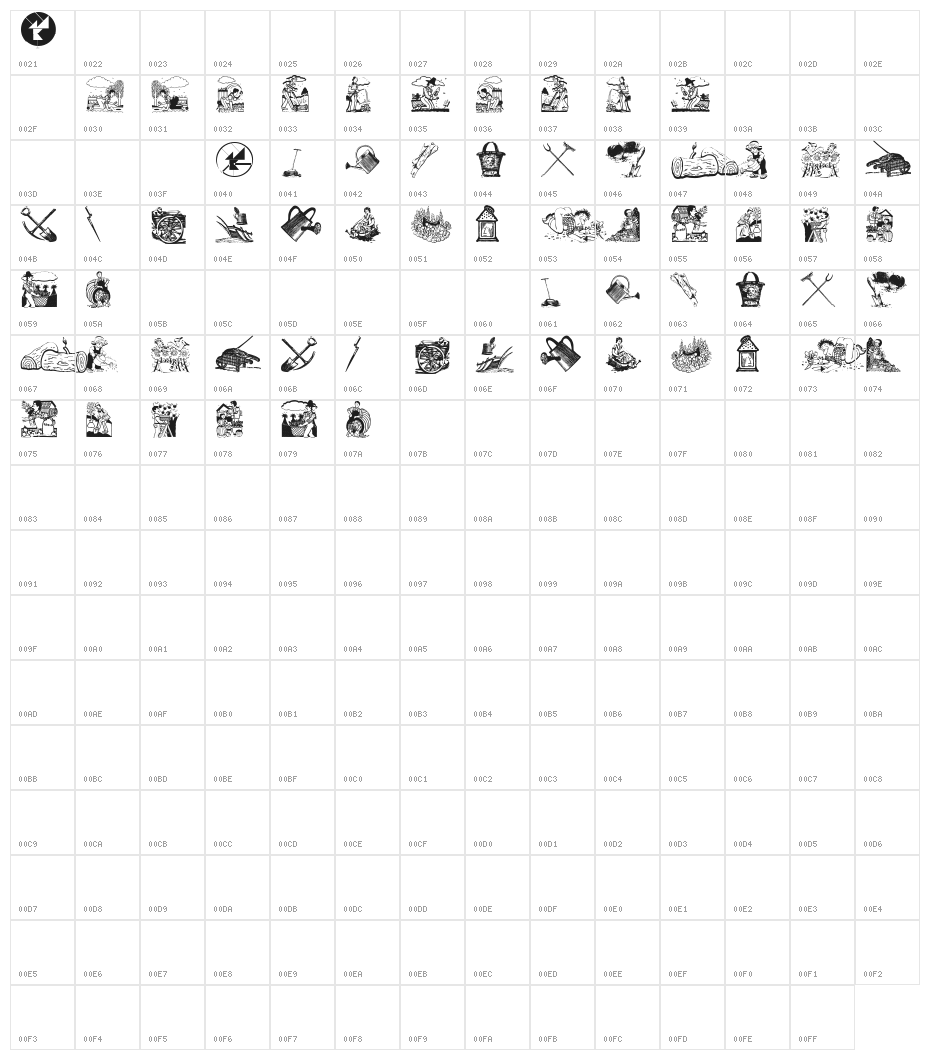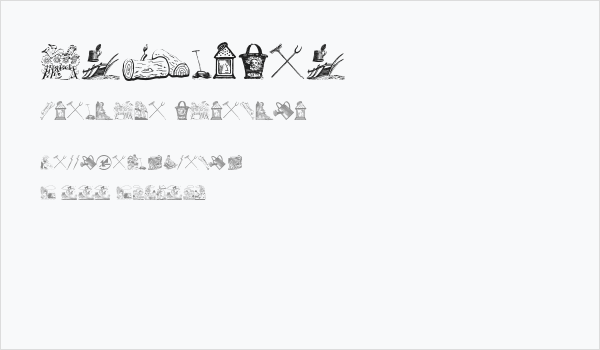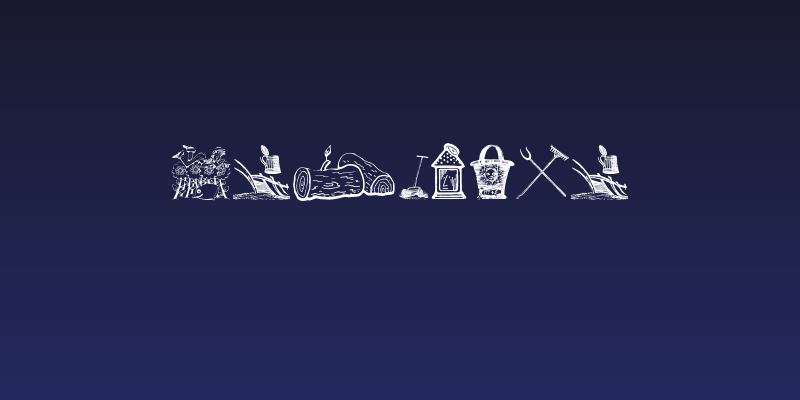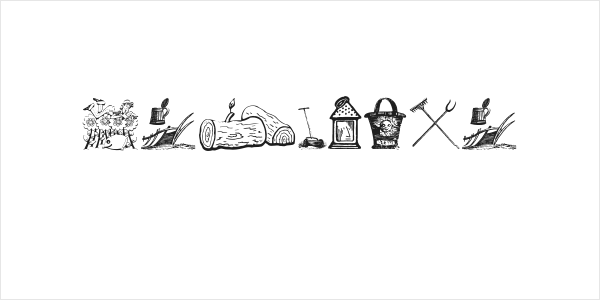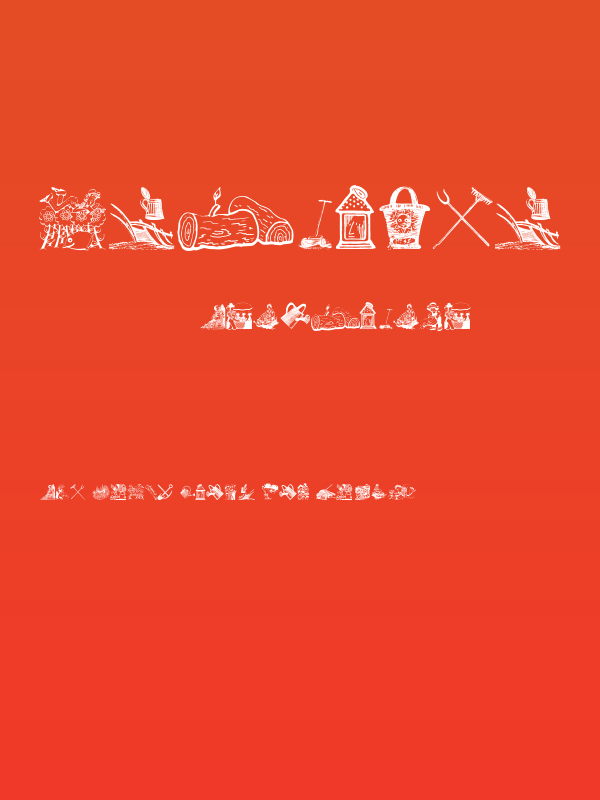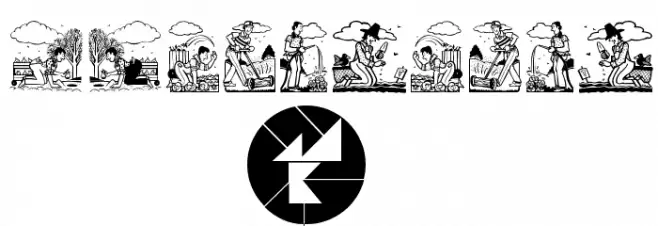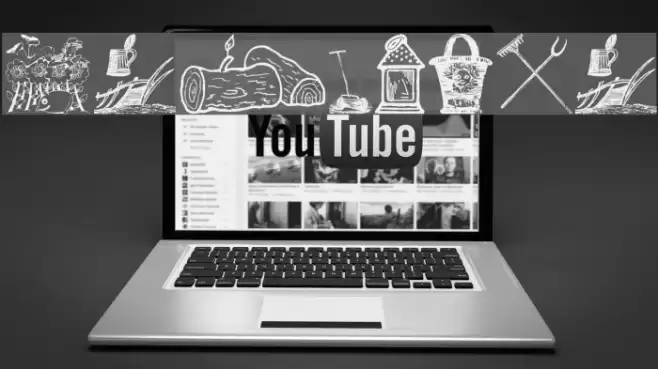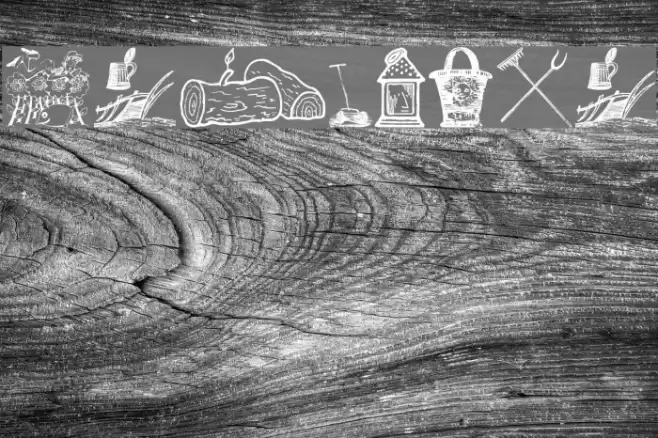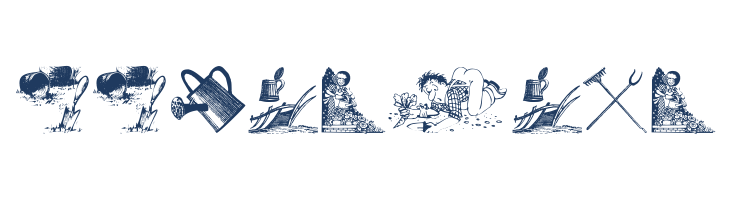
InGarden Font
InGarden Description
A decorative dingbat font featuring detailed black-and-white illustrations of gardening tools, activities, and scenes, including watering cans, baskets, people gardening, and outdoor landscapes. Each character is represented by a unique garden-themed image rather than traditional alphanumeric glyphs.
| Overall Style | Decorative, Vintage |
| Use Case | Decorative elements, Themed dividers, Illustrative accents |
| Proposed Projects | Gardening blogs, event flyers, scrapbooking, themed invitations, educational materials about gardening. |